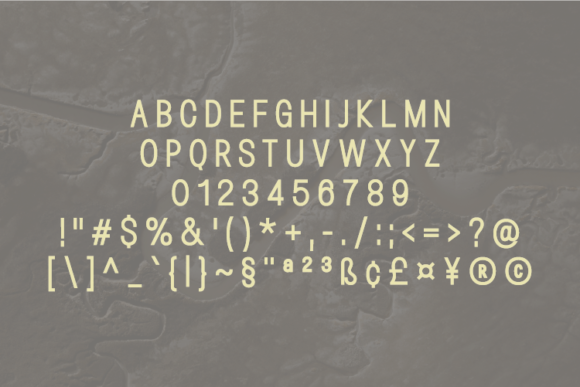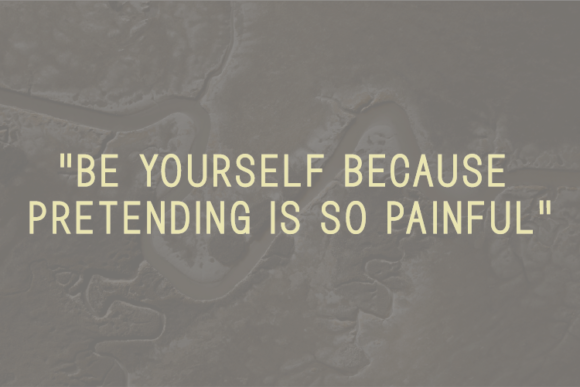
Introduction to Hallum Font
Hallum is a minimal and neat sans serif font.
Key Features of Hallum Font
Why Choose Hallum Font?
Hallum Font offers exceptional quality and versatility, making it a valuable addition to your design toolkit. Whether you’re creating for personal projects or commercial use, Hallum Font delivers professional results.